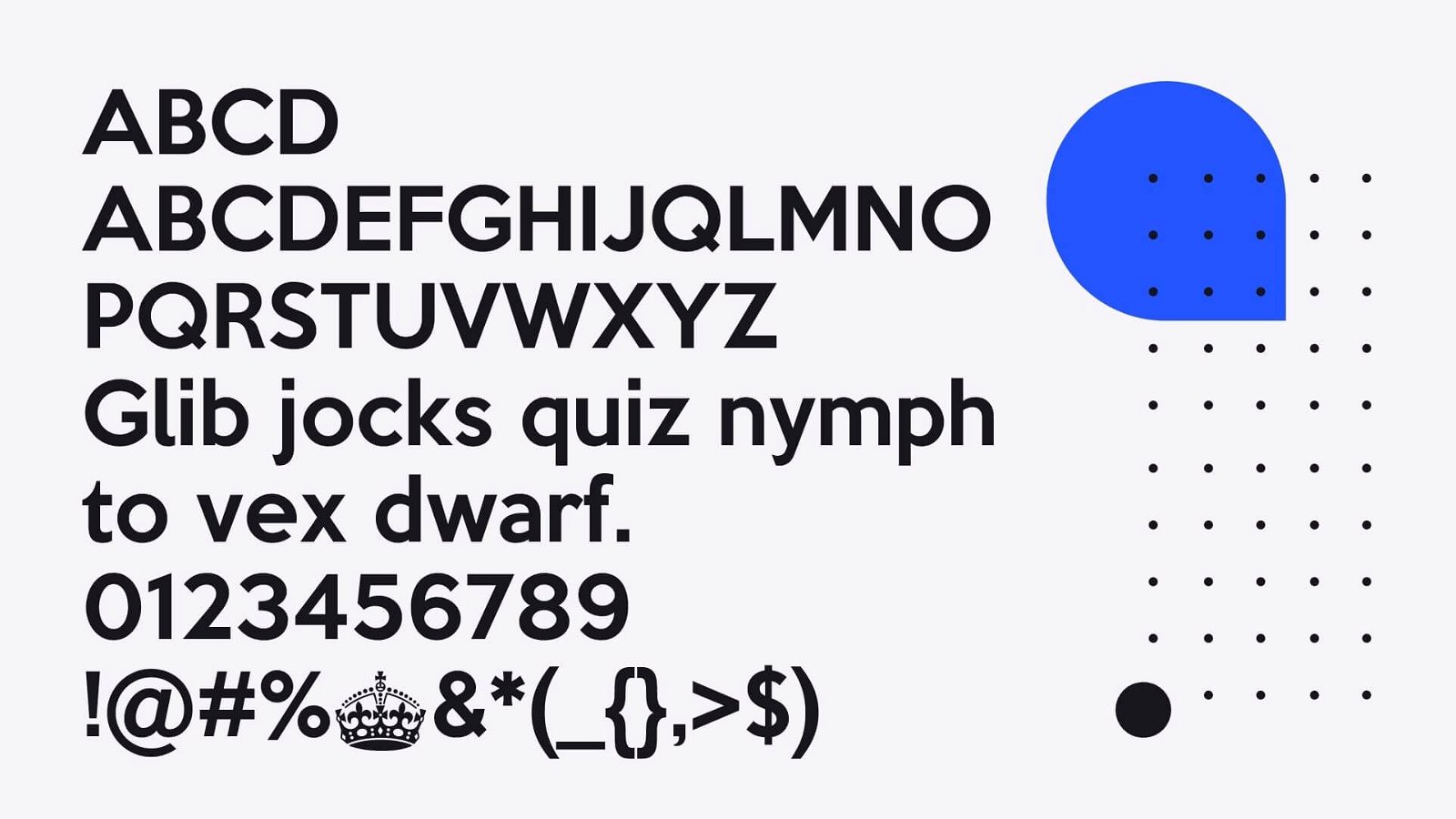
Introducing you to the great sans-serif typeface namely Keep Calm Font, which is specially designed to be used on all types of posters, and from the day this font release it became implacable and this was designed by K-Type font foundry.
This font is also known as the Caslon Egyptian and this font is considered the first and most used commercially traded typeface. The styling of this font is inspired by the poster of World war 2 in the year 1930.
Reason to Use Keep Calm Font
This is the old typeface that was redesigned for wide usage and in that version, you will find some great features and weights that will increase the readability of your designs.
There are many different fields and projects are available on which this font can be with ac line font for making small screen texts more prominent and for designs websites, Headings, and many more.
What Type of Font Is Keep Calm Font?
This Font is the sans-serif typeface that has been released many decades ago and still now this font is widely used for different designs.
Where This Font Can Be Used?
As we know that the sans-serif fonts are widely used and when this is paired with celestina font this creates amazing shapes for small-size screen texts, websites, and more.